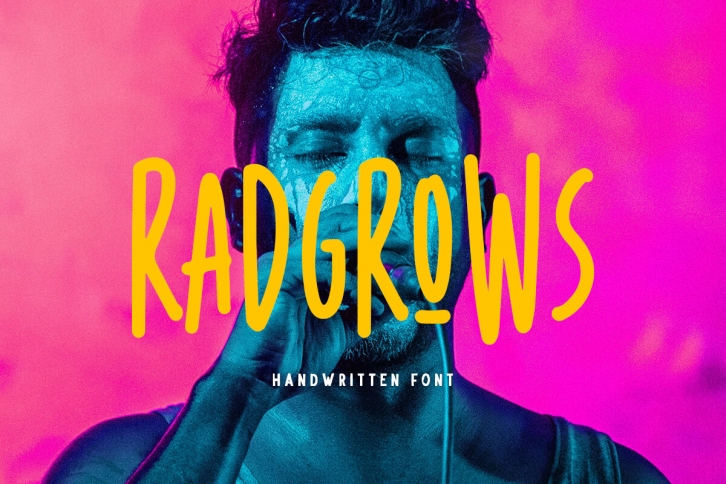
Introducing, Radgrows. A Casual and playful font with ligatures! They works perfect for you who needs a typeface for headline, logotype, apparel, invitation, branding, packaging, advertising etc. This typeface is comes in uppercase, lowercase, punctuation, symbols, numerals, ligatures, etc also support multilingual.